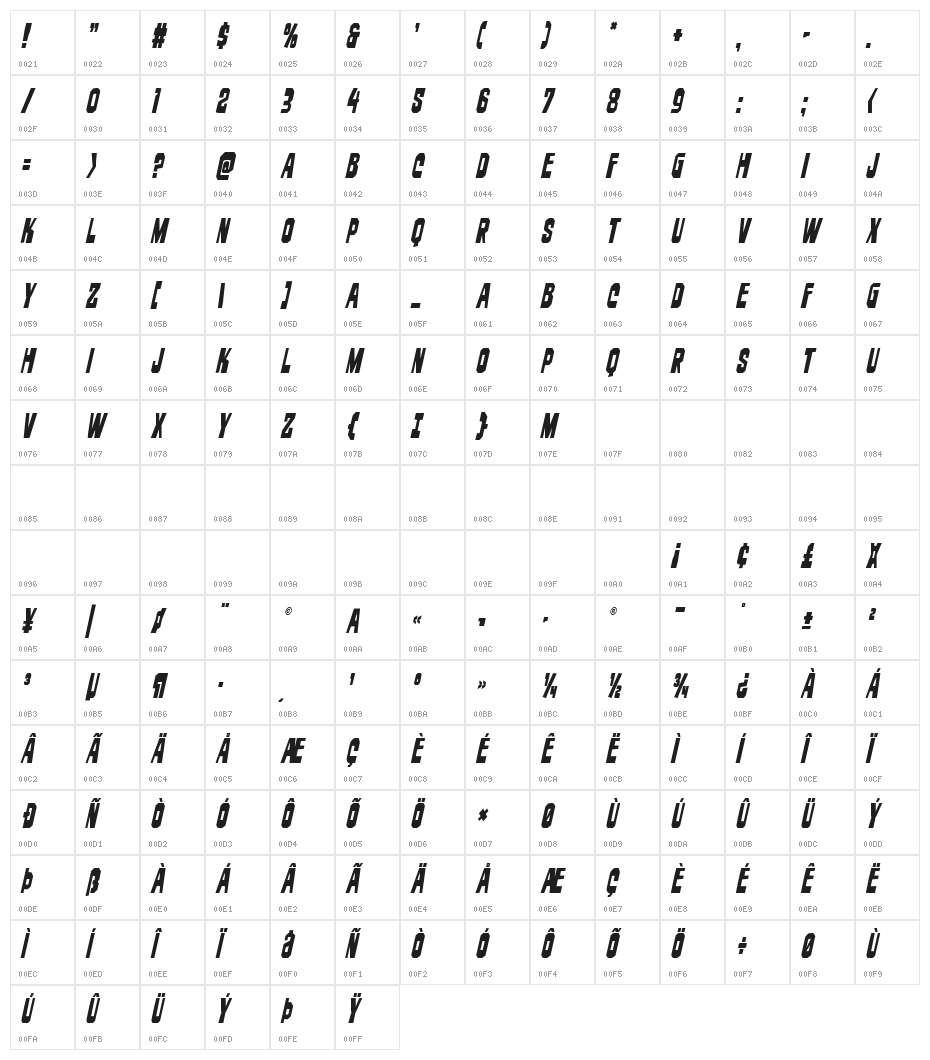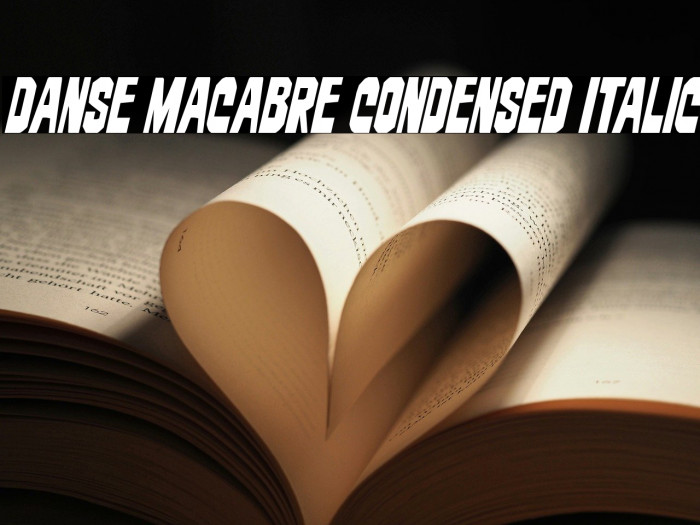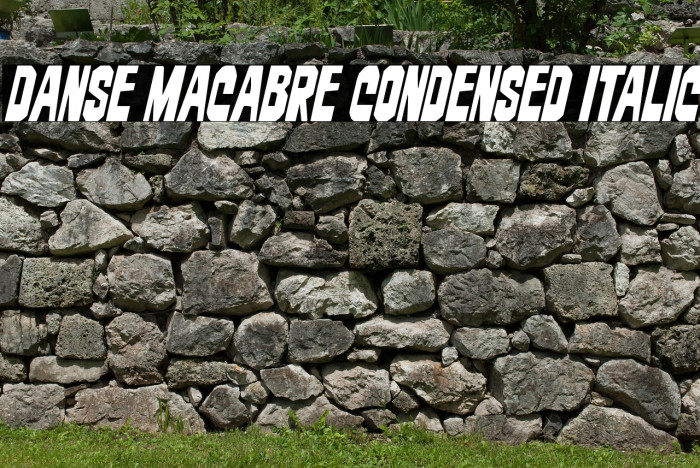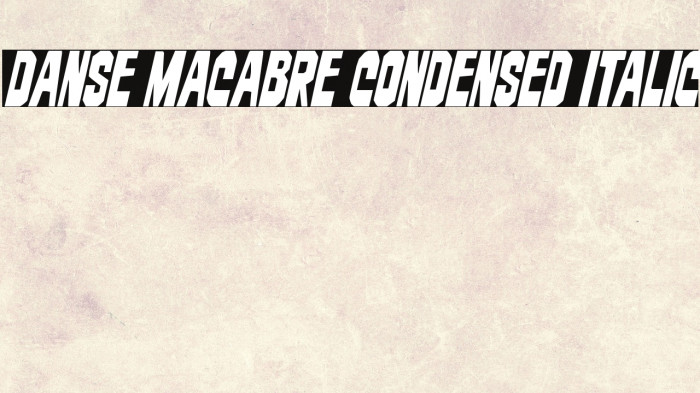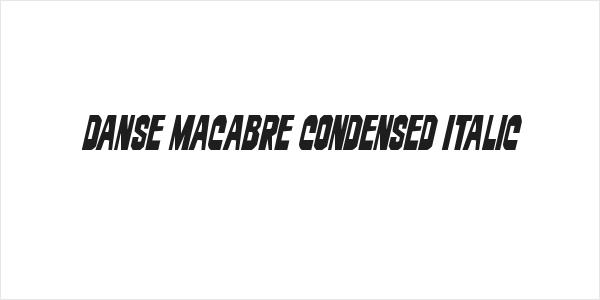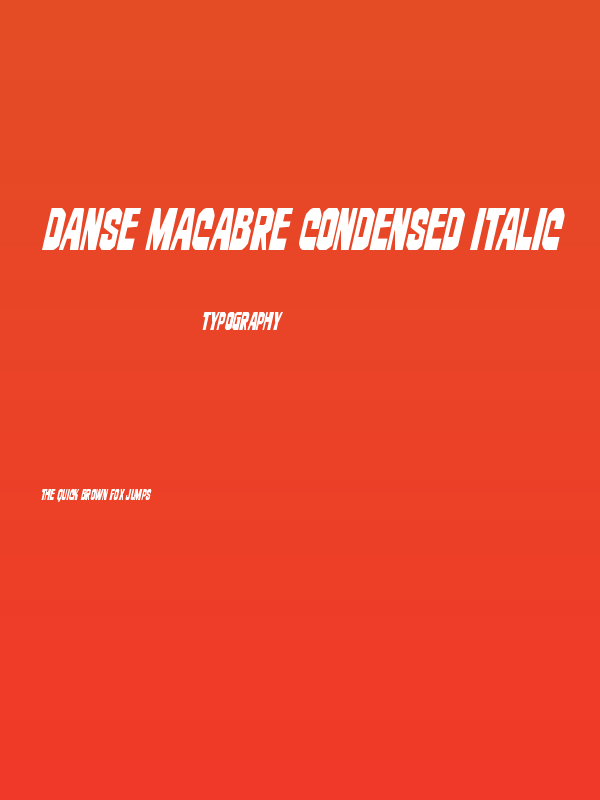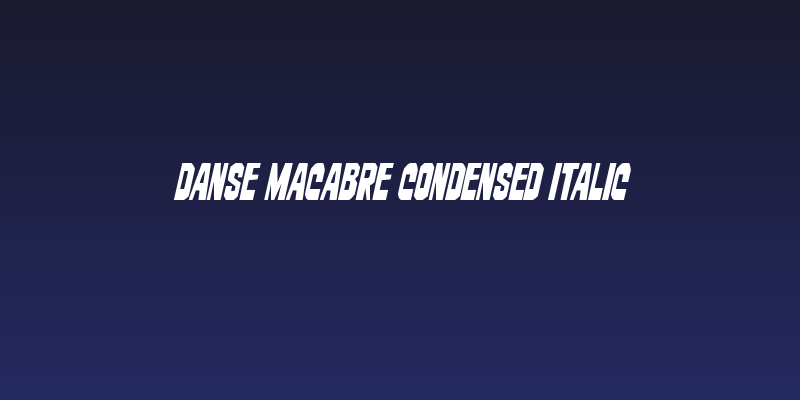
Danse Macabre Condensed Italic Font
Danse Macabre Condensed Italic Description
This font features a bold and dynamic style with a distinct italic slant, giving it a sense of motion and energy. The condensed form allows for efficient use of space, making it suitable for impactful headlines and titles. The characters are sharply defined with angular edges, contributing to a modern and edgy appearance. The uppercase and lowercase letters maintain a consistent design, ensuring readability while adding a unique flair. Numbers and special characters are equally stylized, maintaining the font's overall aesthetic. This font is ideal for projects that require a strong visual presence and a contemporary feel.